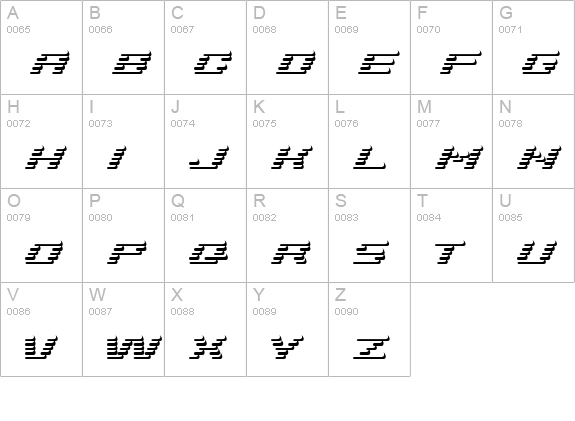
AddShade font is a beautifully crafted typeface that exudes elegance and sophistication. With its unique design and subtle shading, this font is sure to make your projects stand out. The delicate curves and intricate details of AddShade font lend a touch of creativity and charm to any text or design. Best of all, AddShade font is available for free download at FontsMarket.com. Now you can easily enhance your creations with this stunning font without any cost. Whether you're working on a graphic design project, branding, or simply want to add a touch of flair to your documents, AddShade font is the perfect choice. Download it today and let your creativity shine with this exquisite typeface.